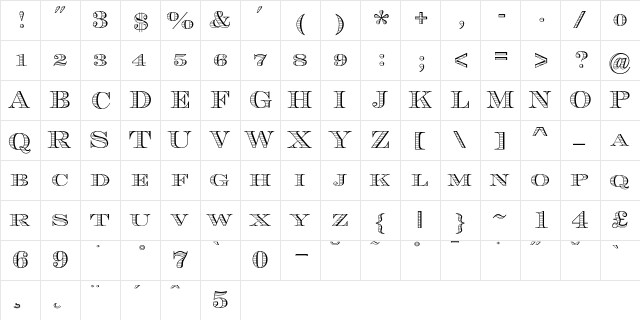
Engravers-Shaded Regular
Design Context for Engravers-Shaded Typeface
Engravers-Shaded offers clean, dependable letterforms without strong stylistic allegiance, making it a practical choice for designers who need flexibility.